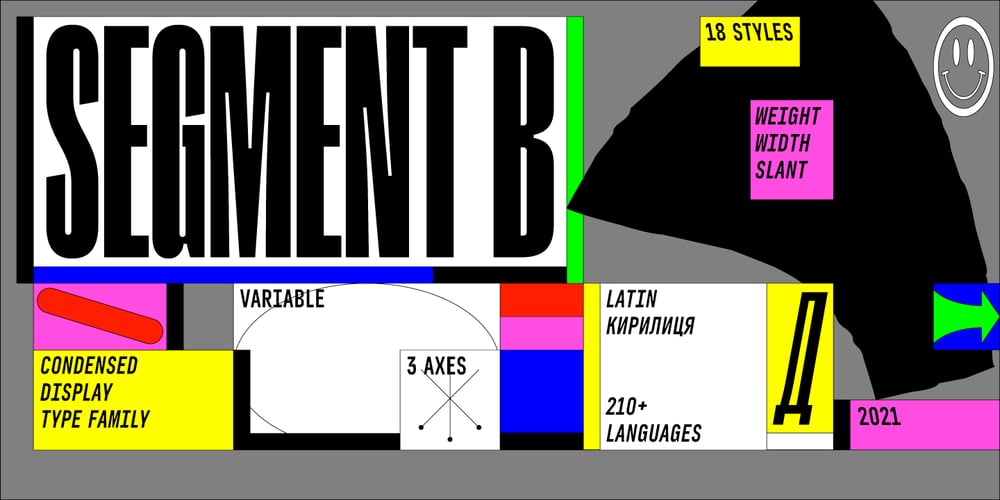
Segment B Type
Segment B Type font
Segment B Type Font Family was designed by Maksym Kobuzan and published by Kobuzan. Segment B Type contains 22 styles and family package options. Segment B is a powerful display type family with 18 styles inspired by condensed European grotesques of 19th-century with a reference to the first grotesques, which differ in the contrast of strokes, but with clear geometric proportions. In Black weights, the letterforms are inspired by the aggressive industrial graphic design of the 1960s and 70s. Both have 3 axes and are adjustable in weight, width and 10? italic. It is a typeface with narrow proportions, distinctive character, high-quality outline and lots of details. Characters have oblique cuts, sharp tails and highly visible ink traps. All this makes the font more aggressive and edgy. The huge x-height with short ascenders and descenders allows this typeface to be used in blocks with minimal line spacing.Features:– Total glyph set: 631 glyphs;– 18 styles (3 weights x 3 widths + italic);– Support 210+ languages;– Latin Extended;– Cyrillic Basic + Bulgarian letters;OpenType features:– Proportional numerals, tabular numerals, superiors, fractions;– Punctuations and symbols;– Arrows;– Stylistic alternates (ss01-ss05);– Ligatures;– Case-sensitive forms.